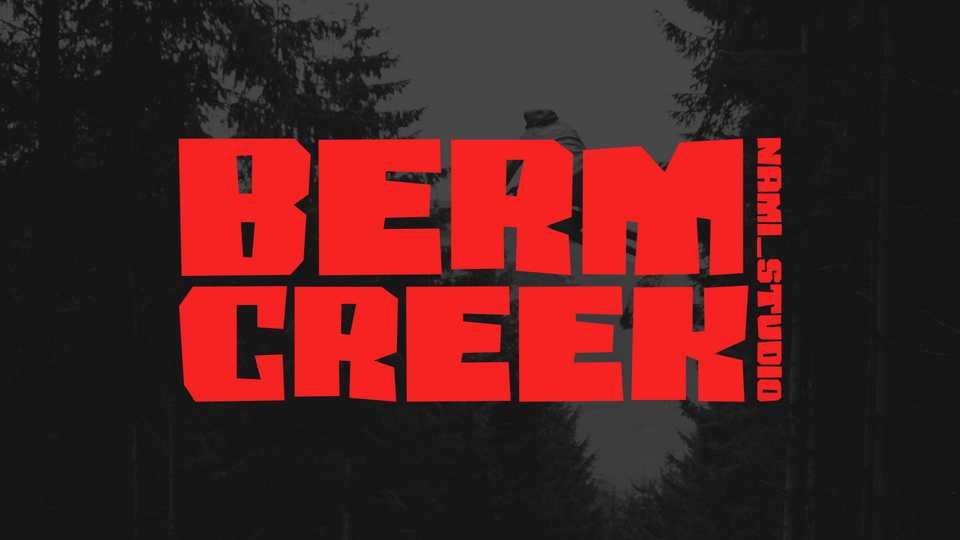
Download Berm Creek font, a bold typeface with a quirky jagged shape to give your project a high cadence and boost of energy you ever need. Suit best for any extreme sport headline, poster, gym motivational t-shirt design, and stickers too.
Designer: NamiStudio